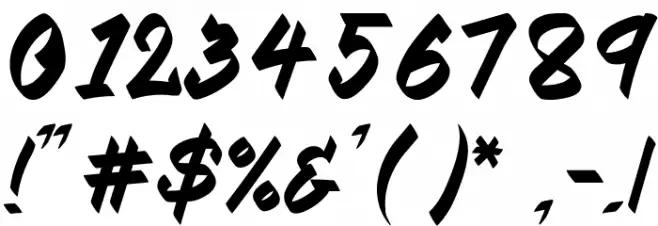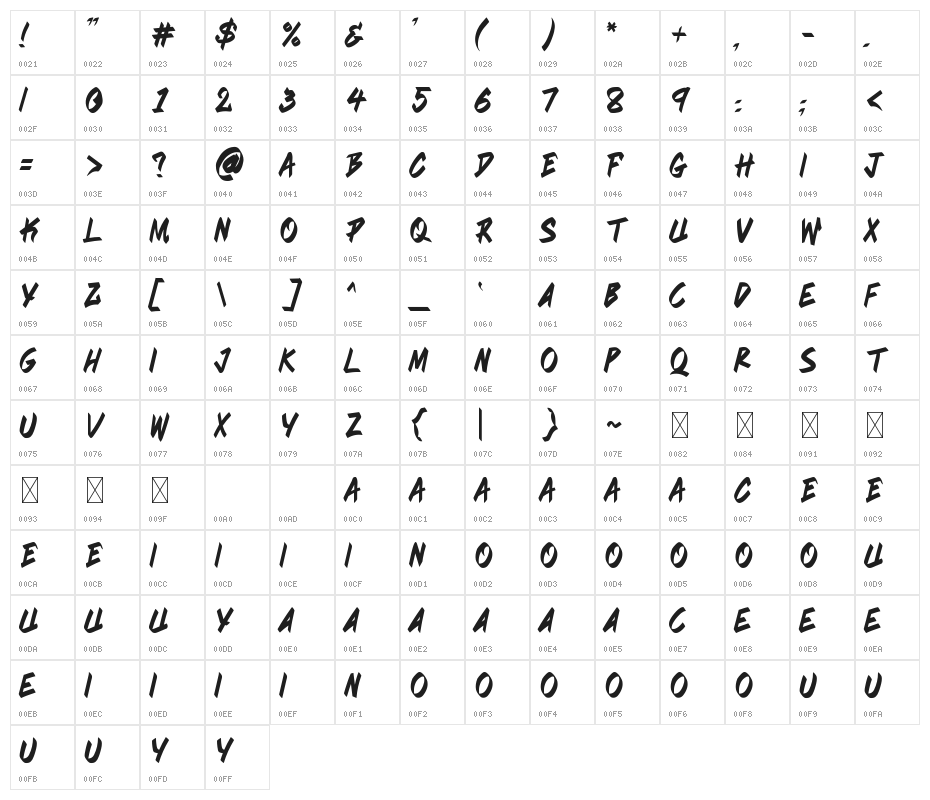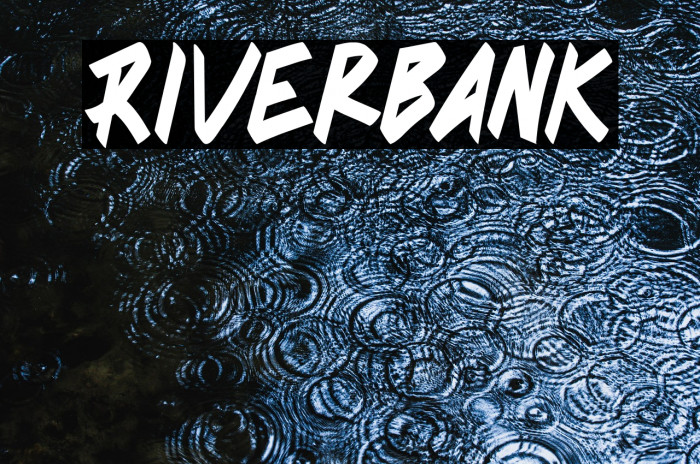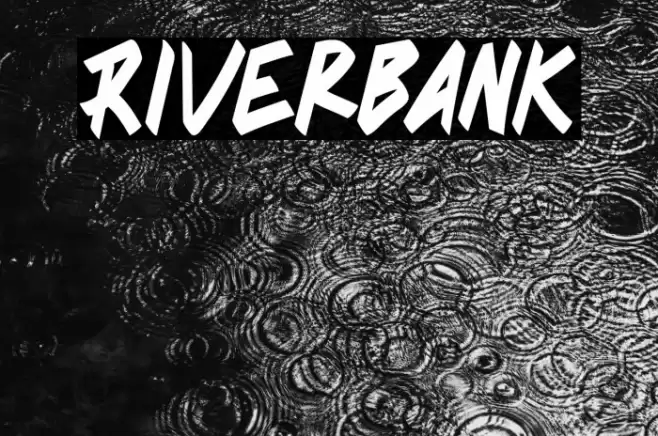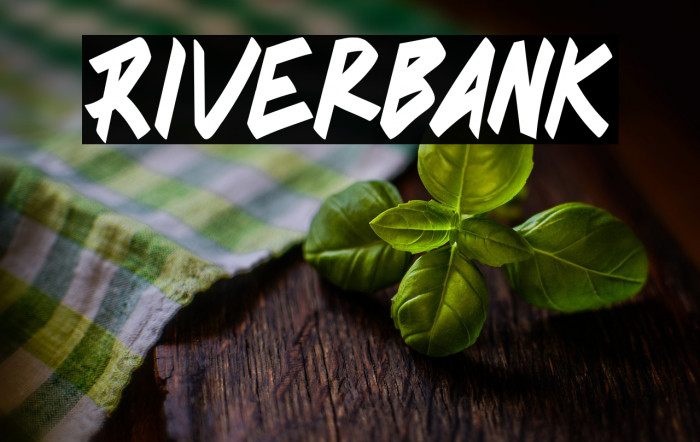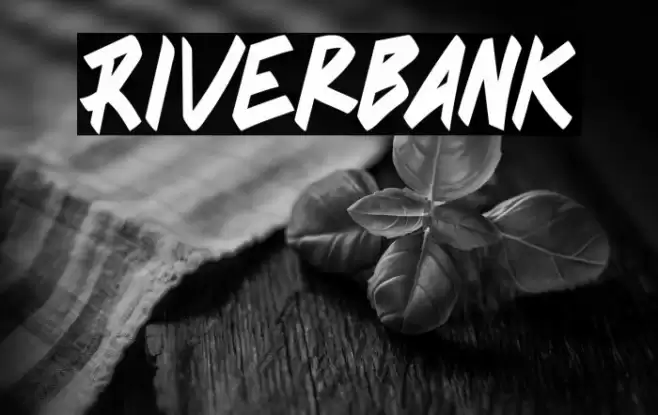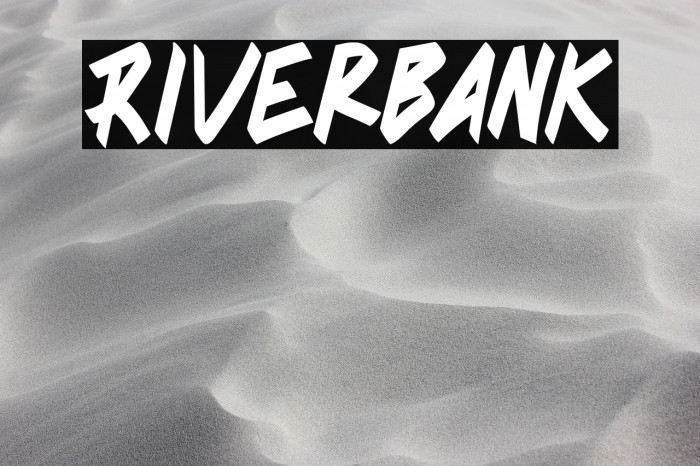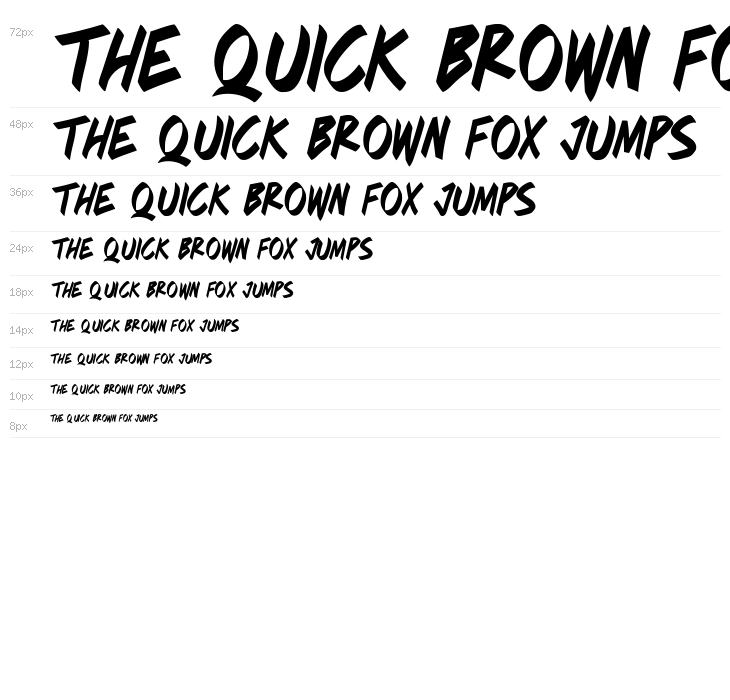
Riverbank Font
Riverbank Description
This font features a bold and dynamic style with a handwritten appearance. The letters are slanted, giving a sense of motion and energy. The strokes are thick and consistent, providing a strong visual impact. The uppercase and lowercase letters maintain a cohesive look, with slightly exaggerated angles and curves. Numbers and special characters follow the same bold and expressive design, making them stand out. The overall aesthetic is modern and eye-catching, suitable for projects that require a lively and informal touch.
| Proposed Projects | Ideal for branding, posters, headlines, and any design requiring a bold, lively touch. |